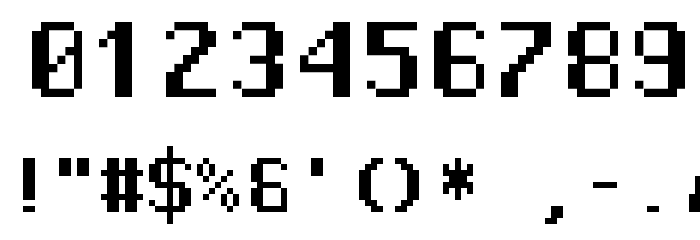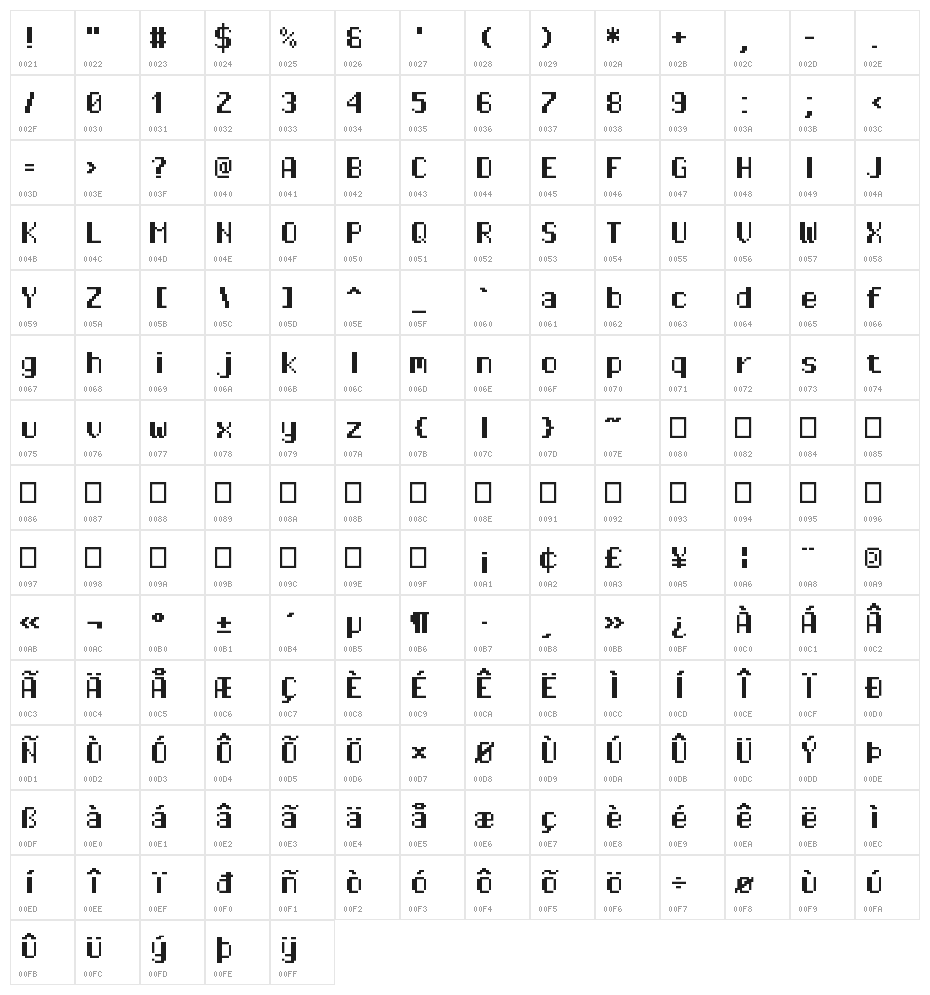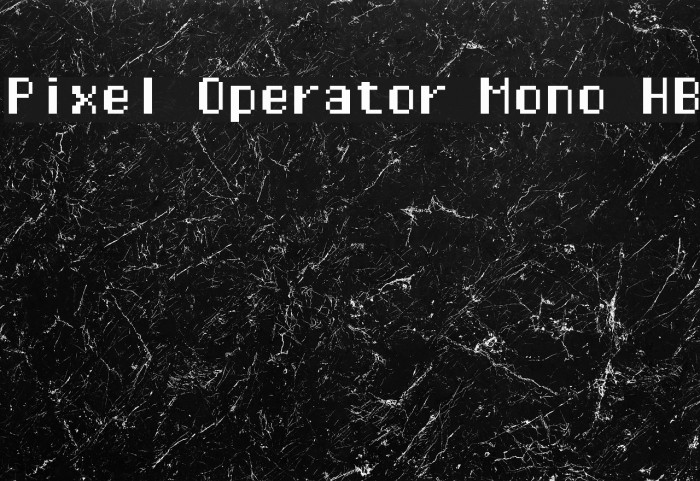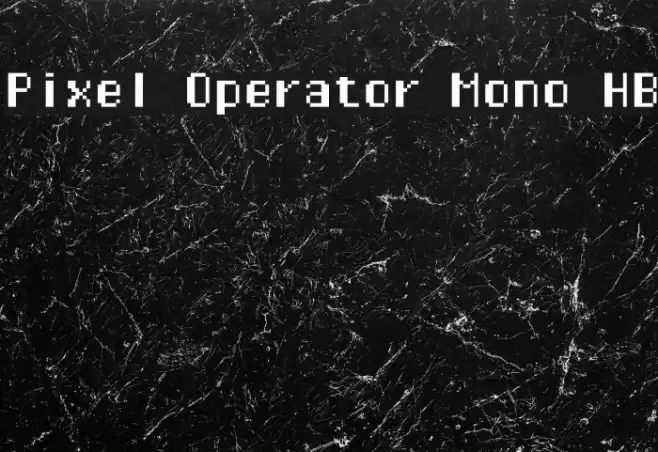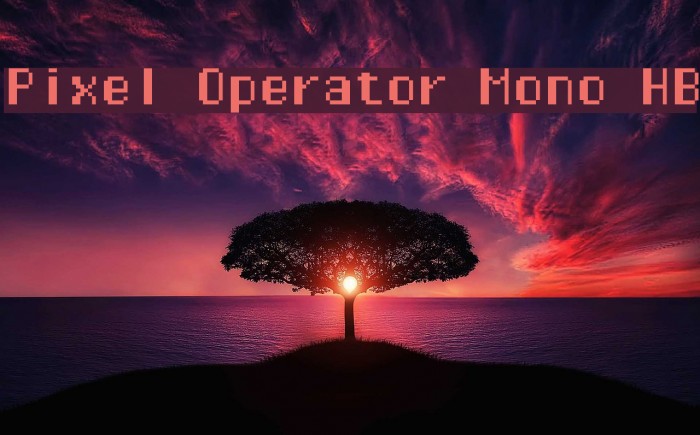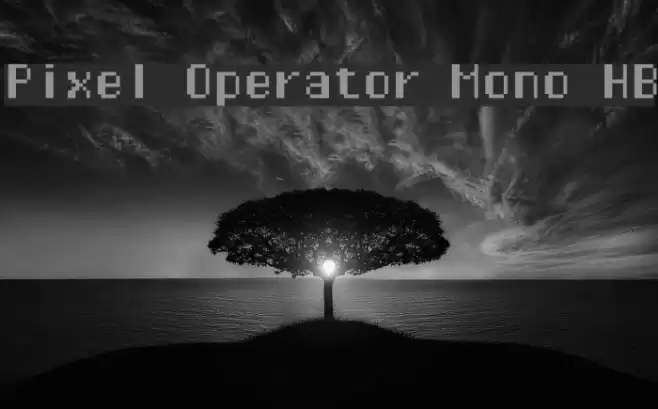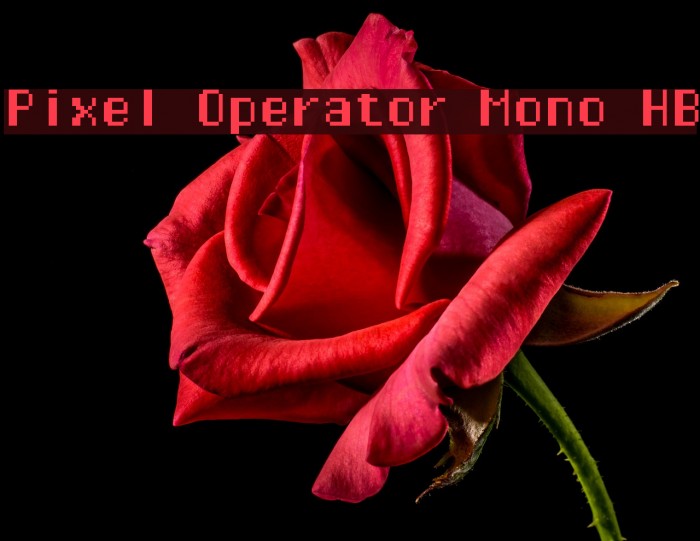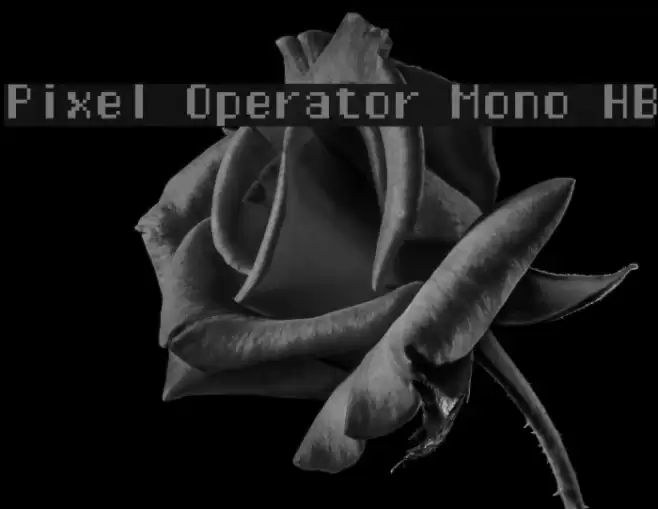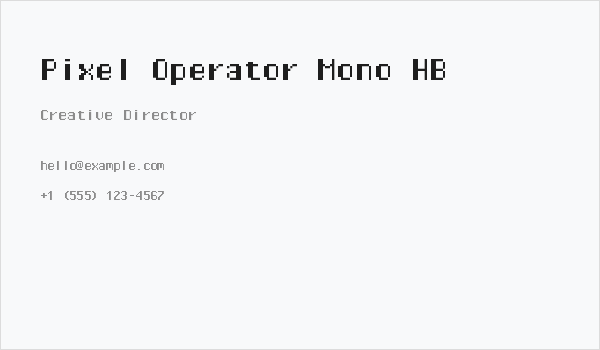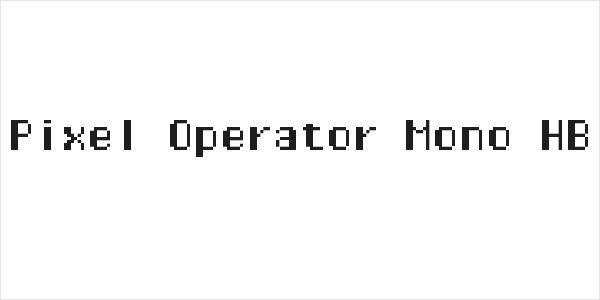
Pixel Operator Mono HB Font
Pixel Operator Mono HB Description
This font is a monospaced typeface characterized by its pixelated, blocky appearance, reminiscent of classic video game graphics and early computer screens. Each character is uniformly spaced, creating a consistent rhythm that enhances readability in coding environments. The design is straightforward, with sharp edges and a lack of curves, giving it a distinctly digital feel. The uppercase and lowercase letters maintain a uniform height, while the numerals are clear and easily distinguishable. Special characters are designed with the same pixelated style, ensuring a cohesive look across all glyphs.
A pixelated, monospaced font ideal for coding and digital-themed projects from Uncategorized fonts.
- Font: Pixel Operator Mono HB
- Proposed Projects: This font is perfect for retro video game designs, coding interfaces, digital art projects, and any application requiring a nostalgic, tech-inspired aesthetic.
- Overall Style: Retro, Digital
- Use Case: Coding, Digital art, Retro designs
- Is Fixed Pitch: Yes